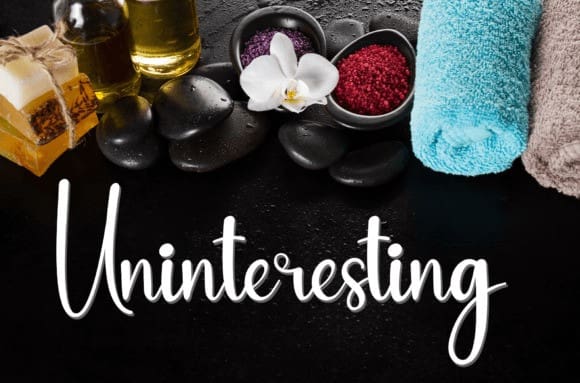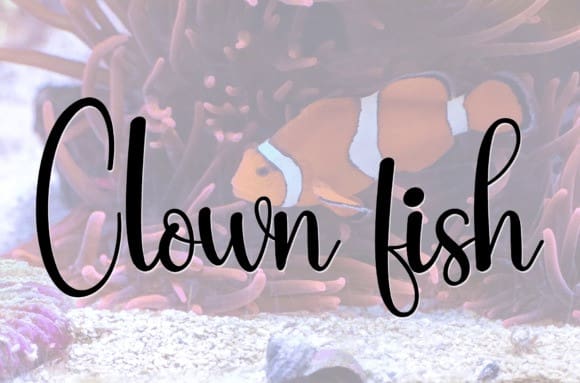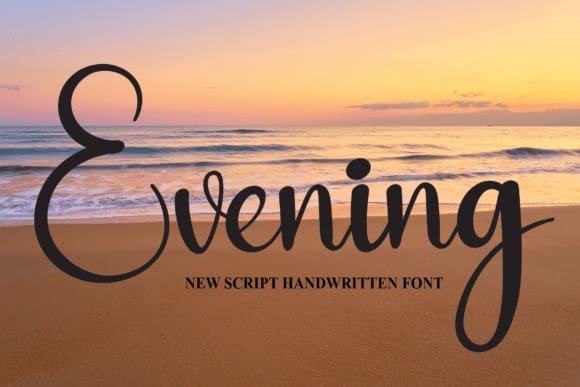
Evening Script Font
Evening Script Font, eels equally charming and elegant. It looks stunning on wedding invitations, thank you cards, quotes, greeting cards, logos, business cards, and every other design which needs a handwritten touch.